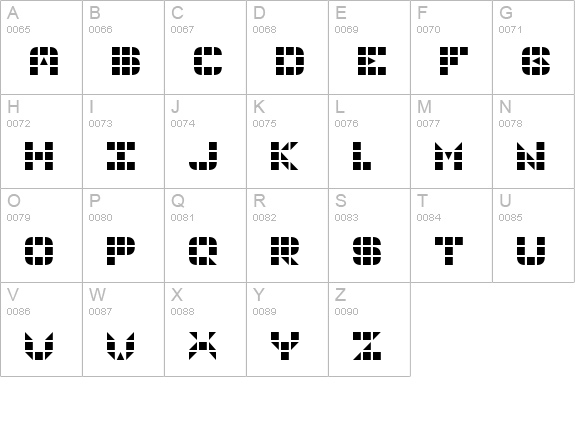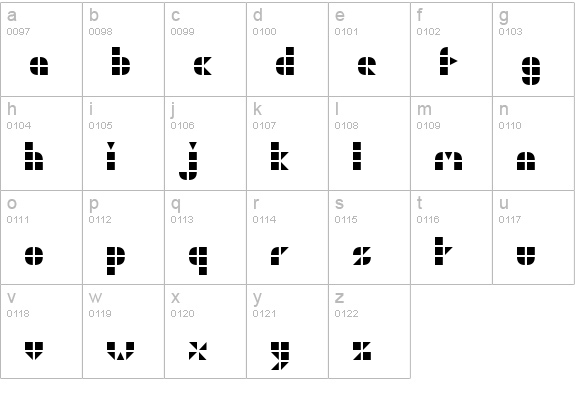
GeoGrid9 Font Details
Introducing GeoGrid9, a captivating and distinctive font that is sure to make a lasting impression. This versatile typeface combines modern geometric shapes with a grid-like structure, resulting in a unique and visually impactful design. With its clean lines and precise angles, GeoGrid9 exudes a sense of precision and sophistication. What sets GeoGrid9 apart is its remarkable ability to adapt to any project or application. Whether you're designing a logo, creating eye-catching headlines, or crafting engaging social media posts, this font will effortlessly elevate your work to new heights. Its versatility allows it to seamlessly blend into various design styles, making it an invaluable asset for both professional designers and casual creatives. One of the most remarkable aspects of GeoGrid9 is that it is freely available to download at FontsMarket.com. This means that you can enjoy this exceptional font without any financial constraints. Its accessibility ensures that designers from all walks of life can utilize GeoGrid9 to unleash their creativity and produce stunning visuals. The attention to detail in GeoGrid9 is truly remarkable. Each character has been meticulously crafted to ensure perfect balance and harmony within the overall composition. The precise spacing between letters and the consistent stroke widths contribute to the font's overall legibility, making it ideal for both print and digital applications. GeoGrid9 is the perfect choice for those seeking a modern and edgy font with a touch of elegance. Its bold presence and sleek aesthetic make it an excellent option for branding, packaging, and editorial design. Additionally, its clean and contemporary appearance ensures that it will remain relevant and timeless for years to come. In conclusion, GeoGrid9 is a font that effortlessly combines geometric shapes and a grid-like structure to create a visually striking and versatile typeface. With its exceptional design, legibility, and accessibility, it is an excellent choice for designers looking to make a powerful statement. Download GeoGrid9 for free at FontsMarket.com and unlock the unlimited possibilities this remarkable font has to offer.